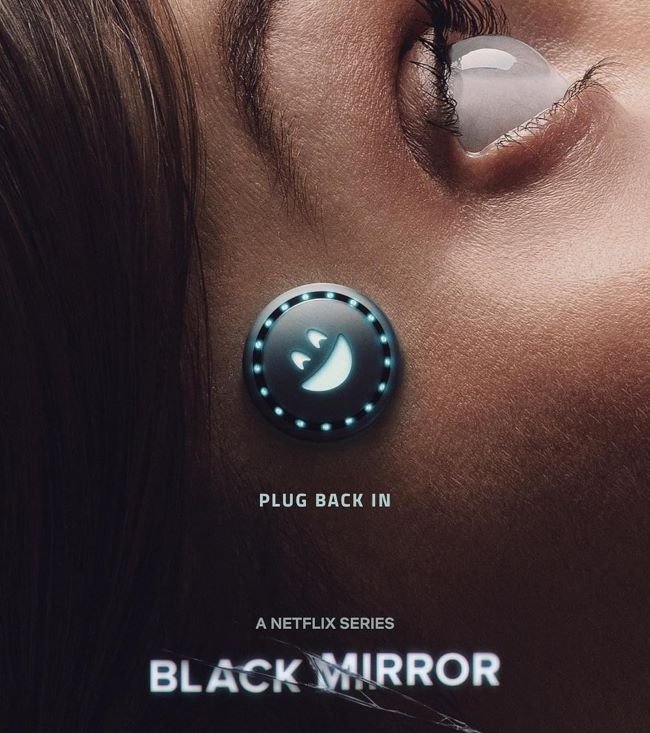
Black Mirror font is the typography of a screen in standby mode — sleek, modern, and carrying the specific chill of technology that is watching you even when you think it isn’t. Charlie Brooker’s Channel 4 and later Netflix anthology series, first airing in 2011, demanded lettering that could pass as a product interface or a corporate identity while simultaneously making the viewer faintly uneasy, and the clean minimal sans-serif delivers exactly that tonal balance. Two alternatives approach this cold, tech-forward register: Alternative 1 and Alternative 2.